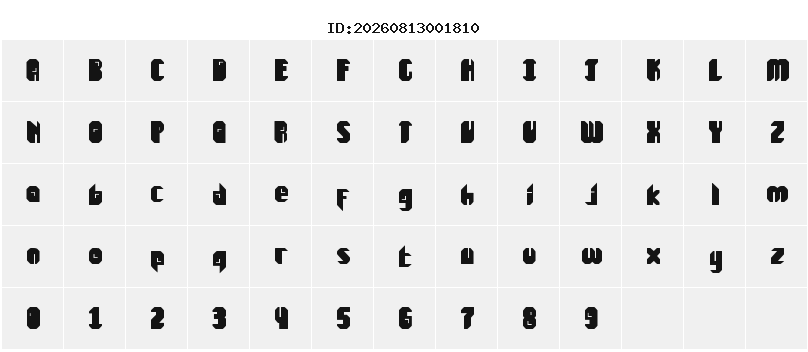
Renica Preview
• Font Name: Renica
• Font ID: Renica:Version 1.00
• Full Font Name: Renica
• Version: Version 1.00 December 16, 2013, initial release
• PostScript Name: Renica
• Description: This font was created using FontCreator 6.5 from High-Logic.com
About Renica.ttf
Renica.ttf is a modern, elegant sans-serif font designed for ultimate readability and visual harmony. Perfect for branding, headlines, web design, and print materials.